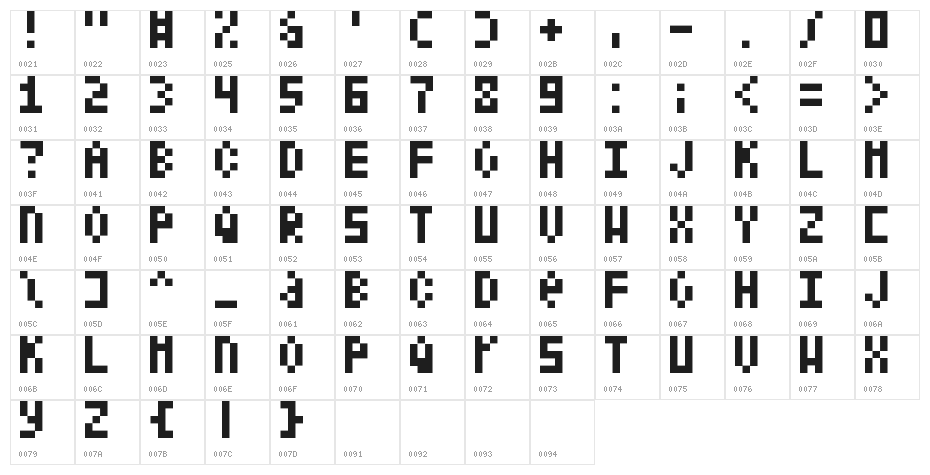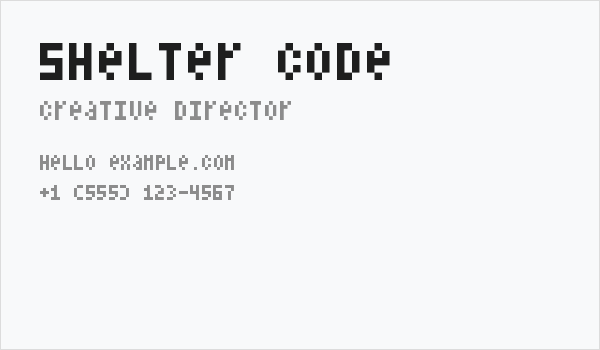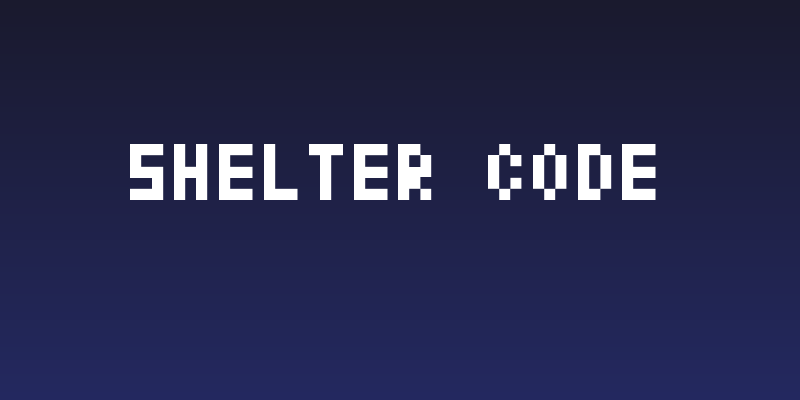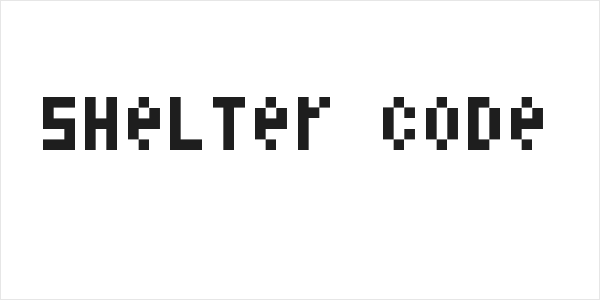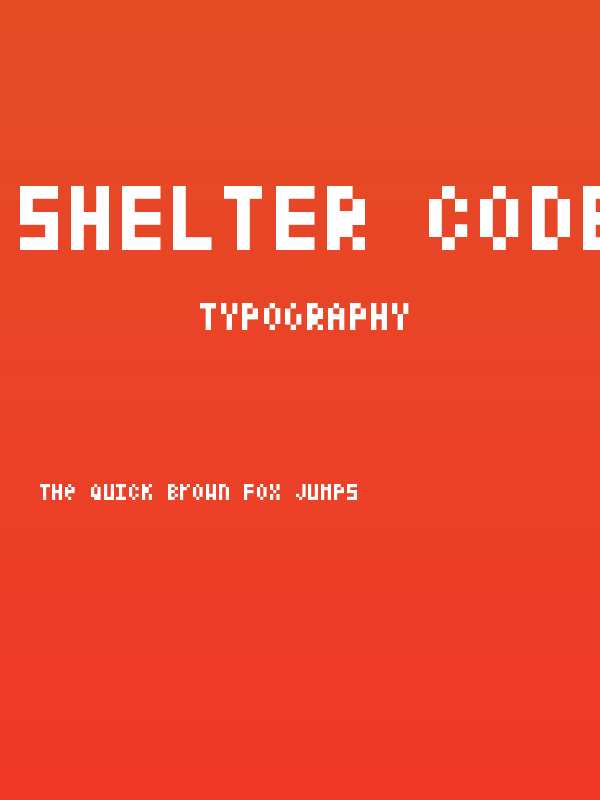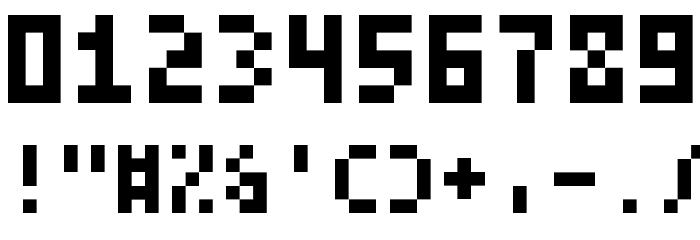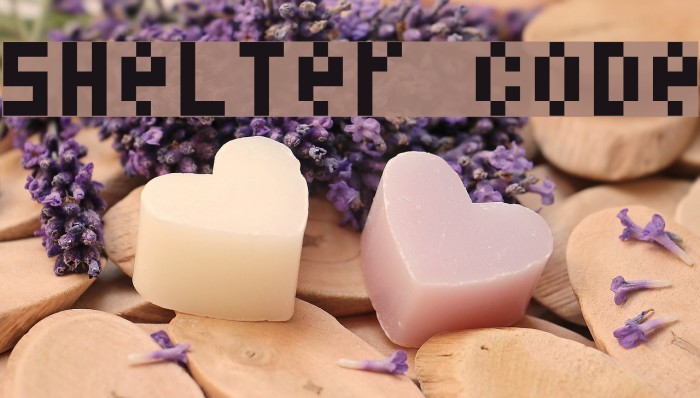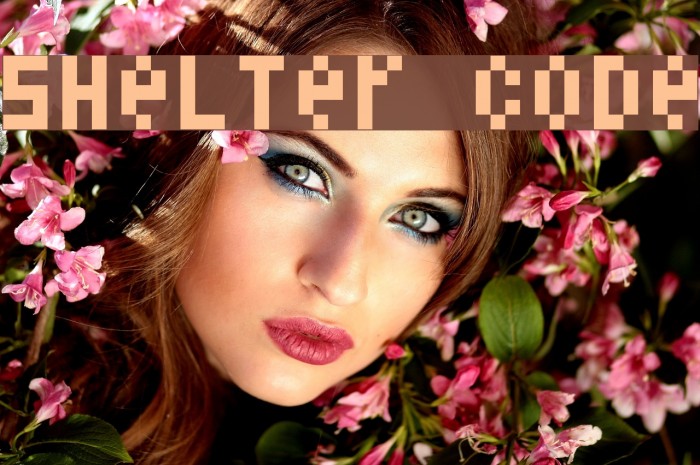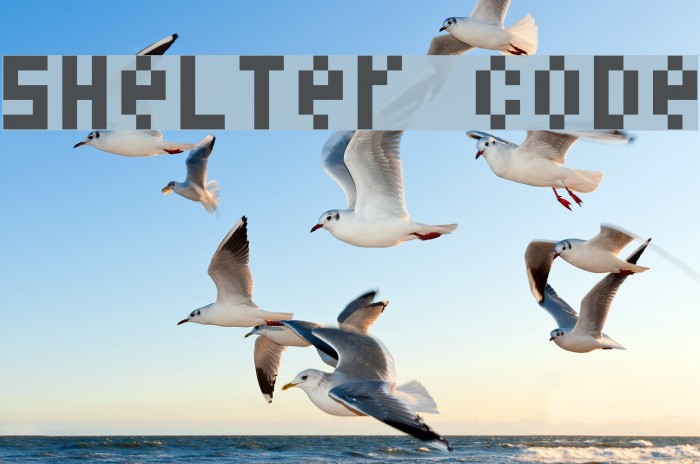
Shelter Code Font
Shelter Code Description
This font features a bold, pixelated style reminiscent of early digital displays and retro video games. Each character is constructed with a blocky, grid-like appearance, giving it a distinct, geometric look. The uppercase and lowercase letters maintain a consistent height, contributing to a uniform and cohesive design. The numerals and special characters follow the same pixelated pattern, ensuring visual harmony across all elements. This font's nostalgic aesthetic makes it ideal for projects that aim to evoke a sense of vintage digital technology or retro gaming culture.
| Overall Style | Retro, Digital, Geometric |
| Proposed Projects | Ideal for retro video game designs, digital art projects, tech-themed posters, and nostalgic branding. |